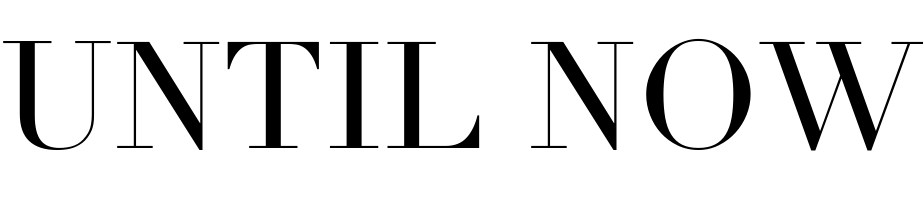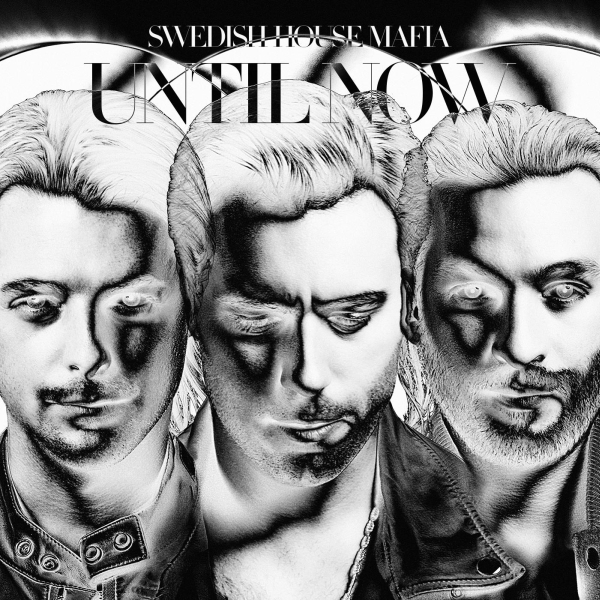
Until Now Font
ElectronicUntil Now is the second studio album by Swedish House Mafia, released in 2012. The album features a blend of progressive, electro, and deep house music with hit tracks like "Don't You Worry Child" and "Antidote."
The title font seen on the album cover is most likely Didot, which is a serif typeface that boasts bold strokes and thin serifs. More information on Didot can be found here.